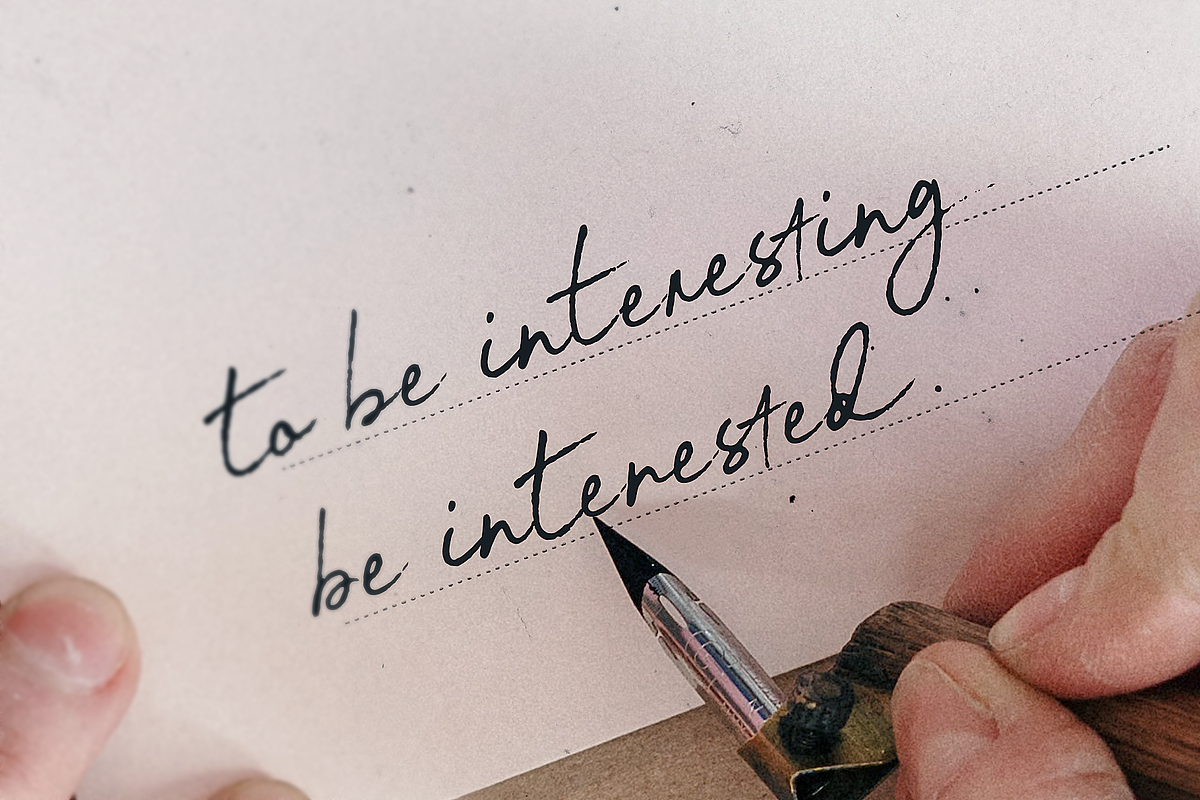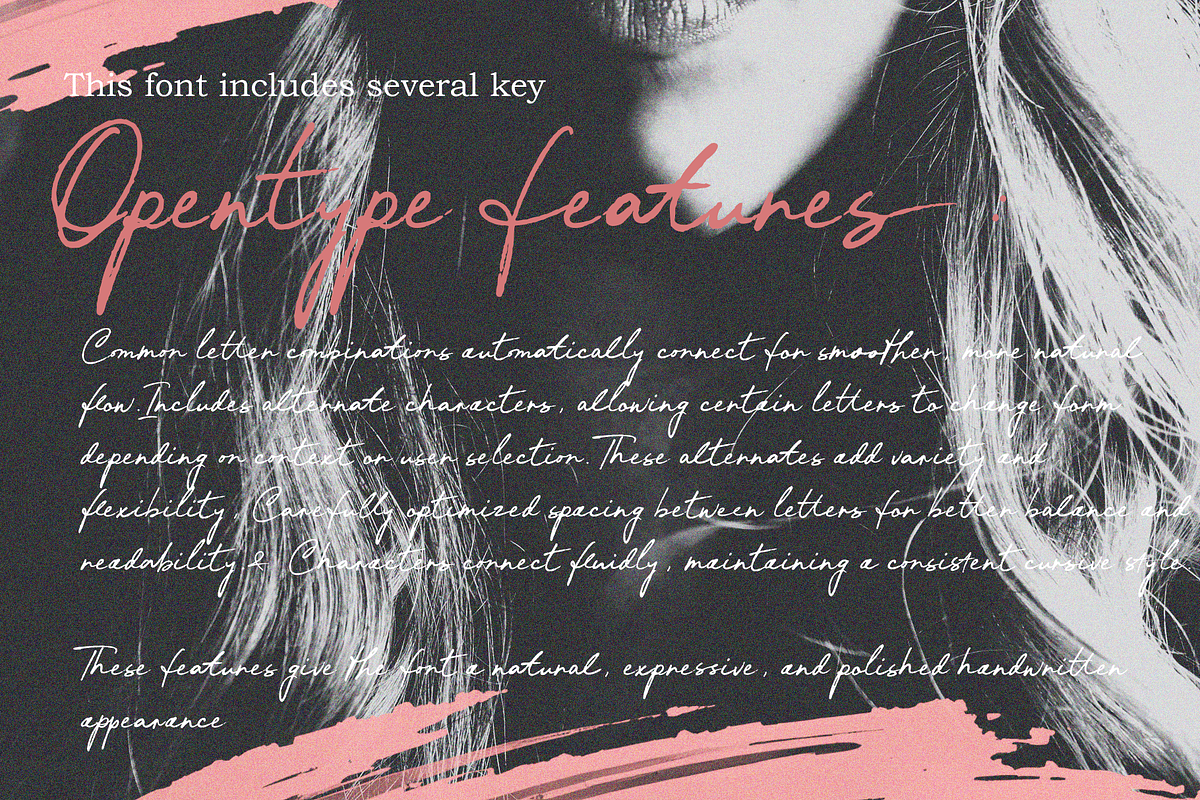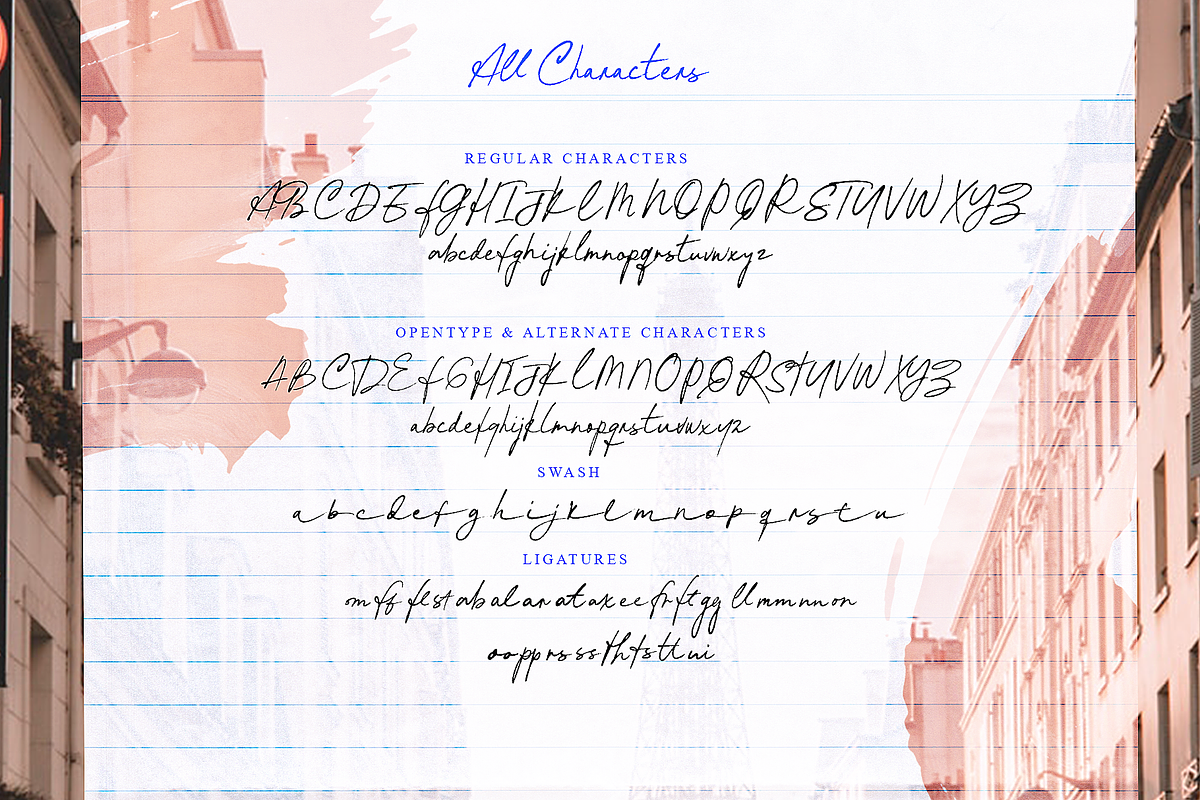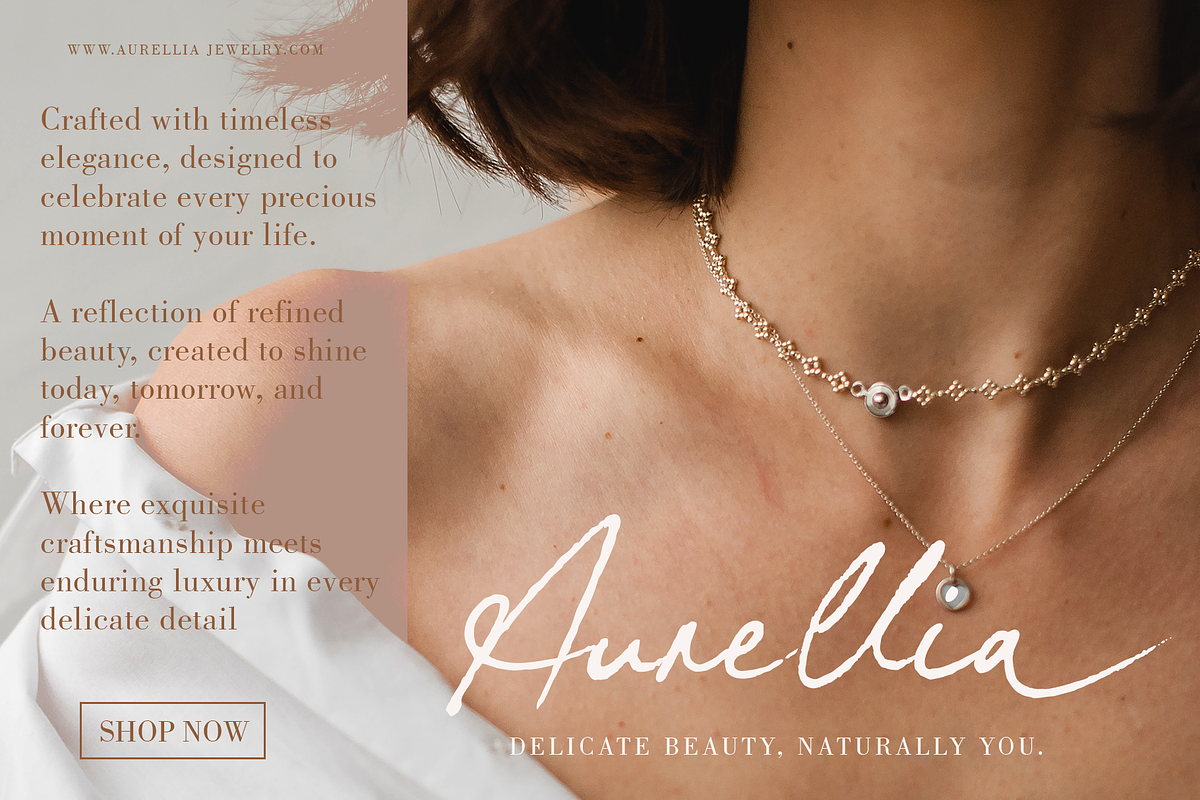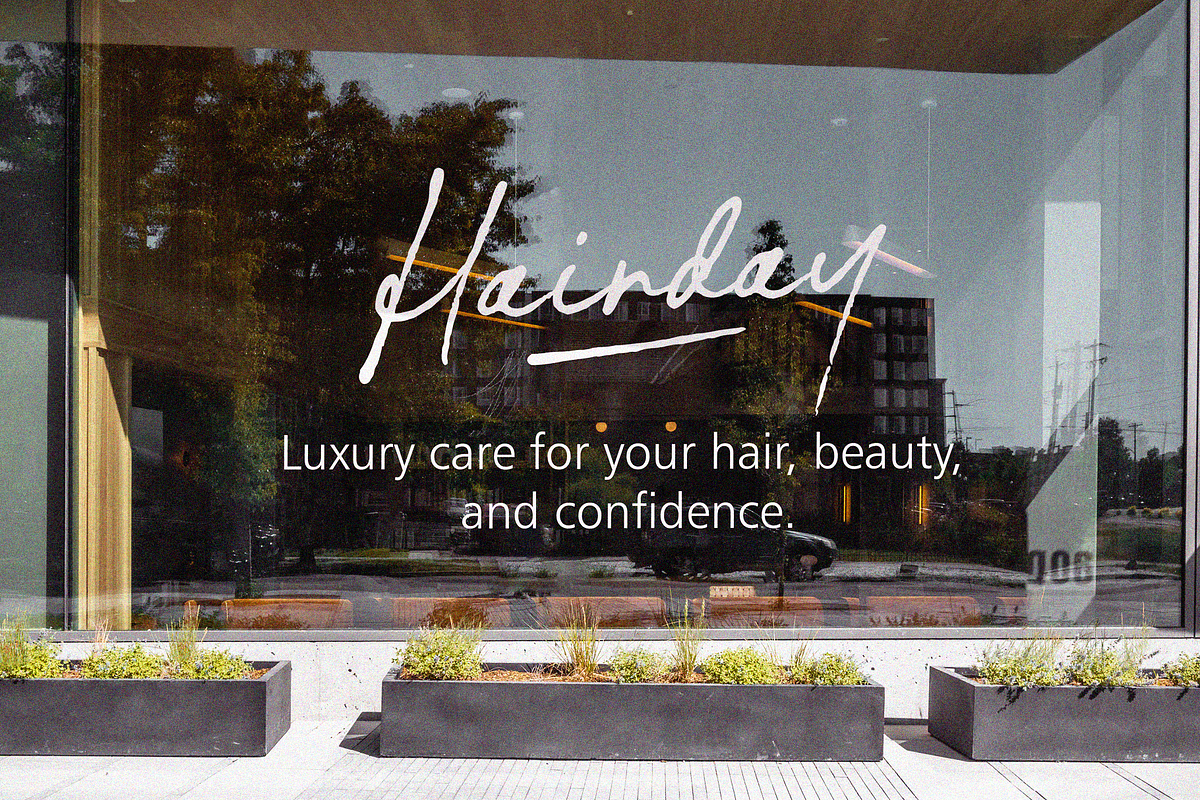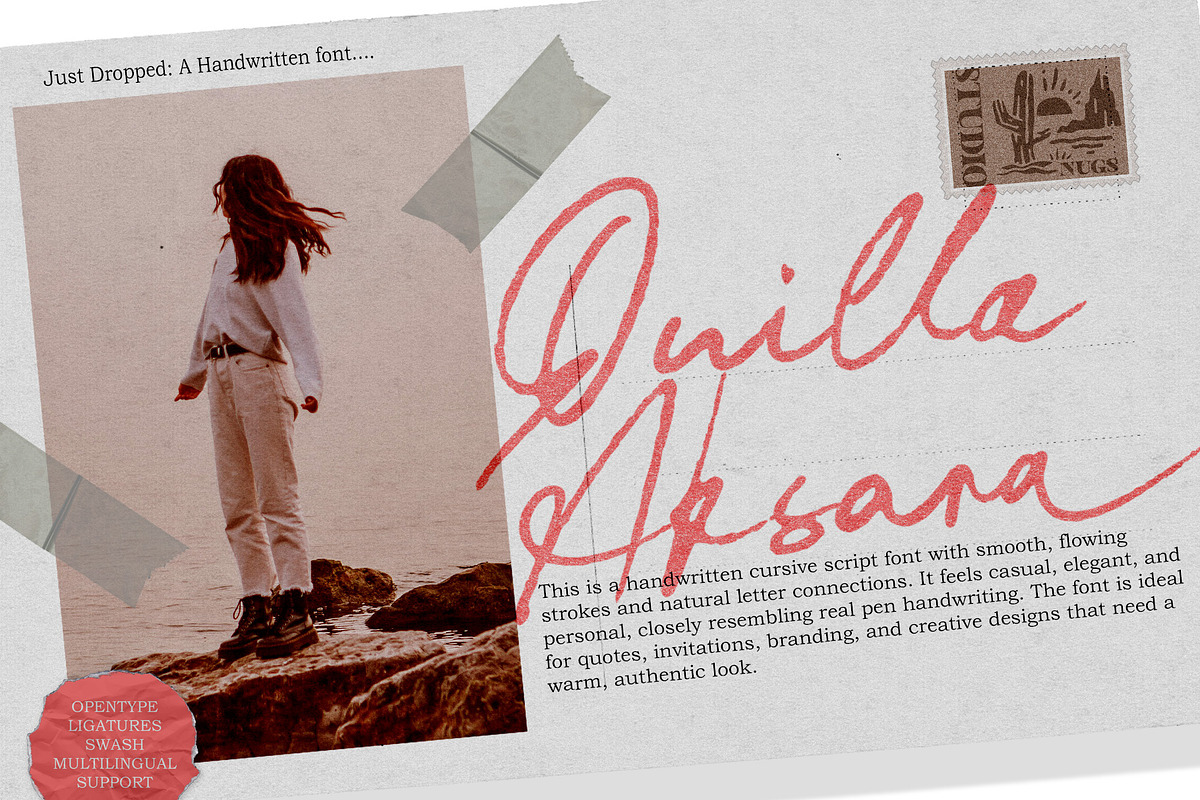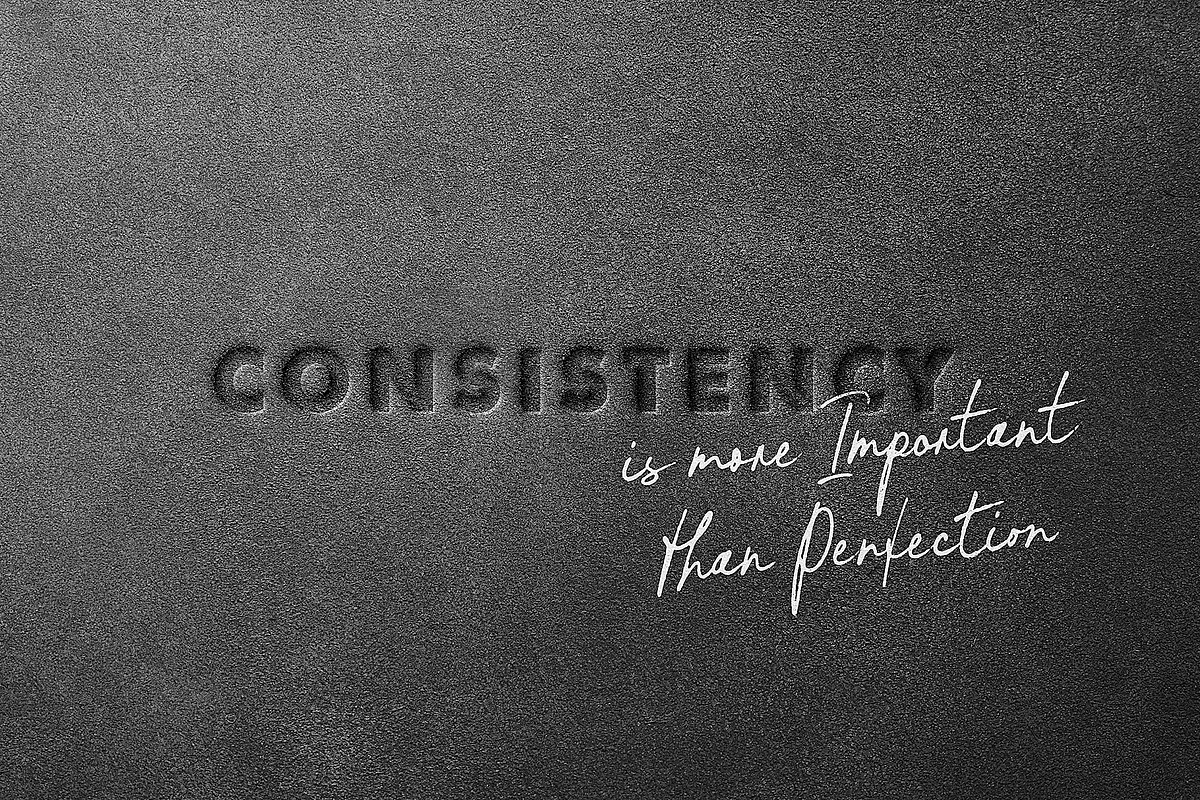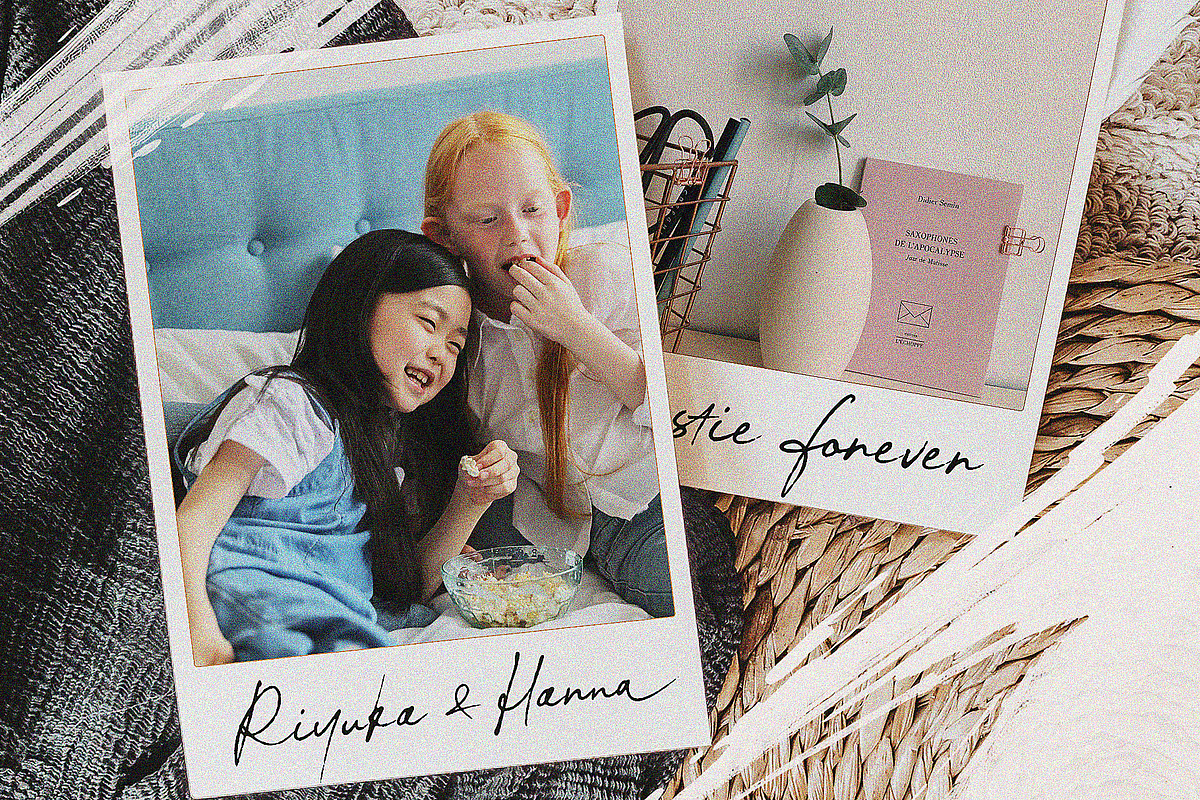
Quilla Aksara
This is a handwritten cursive script font with smooth, flowing strokes and natural letter connections. It feels casual, elegant, and personal, closely resembling real pen handwriting. The font is ideal for quotes, invitations, branding, and creative designs that need a warm, authentic look.
Common letter combinations automatically connect for smoother, more natural flow.Includes alternate characters, allowing certain letters to change form depending on context or user selection. These alternates add variety and flexibility, Carefully optimized spacing between letters for better balance and readability.& Characters connect fluidly, maintaining a consistent cursive style.
These features give the font a natural, expressive, and polished handwritten appearance
- SWASH